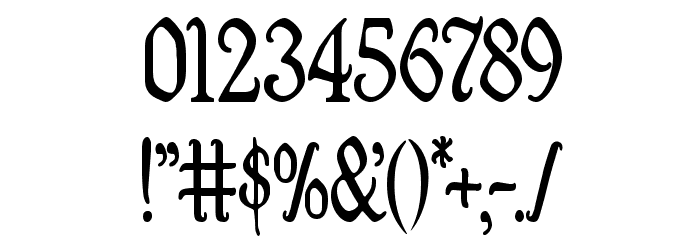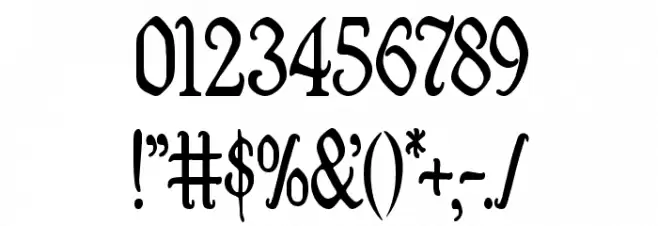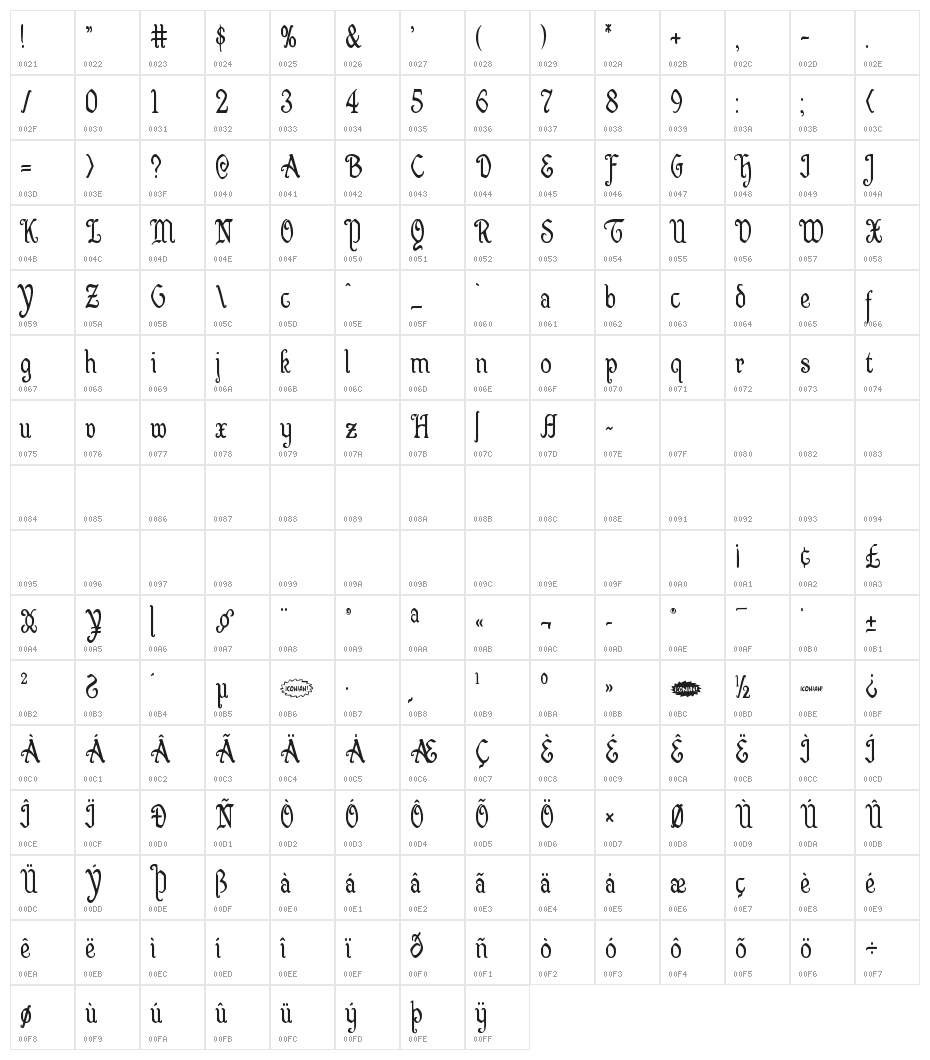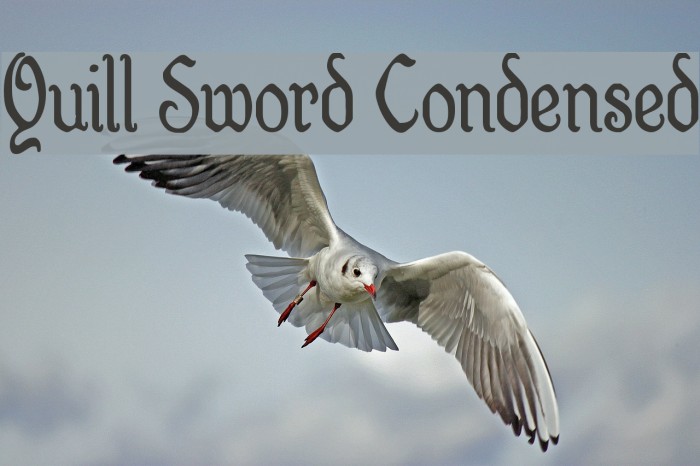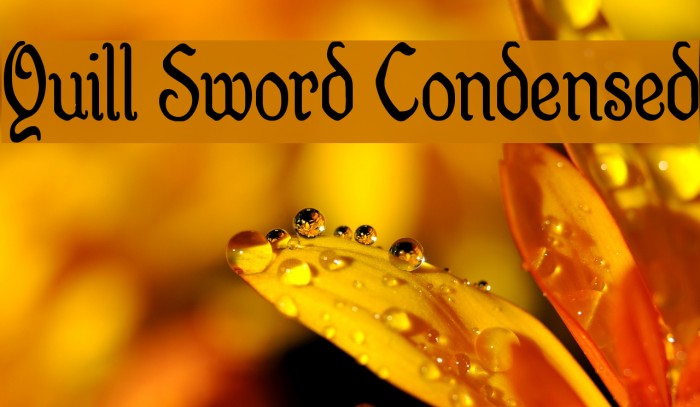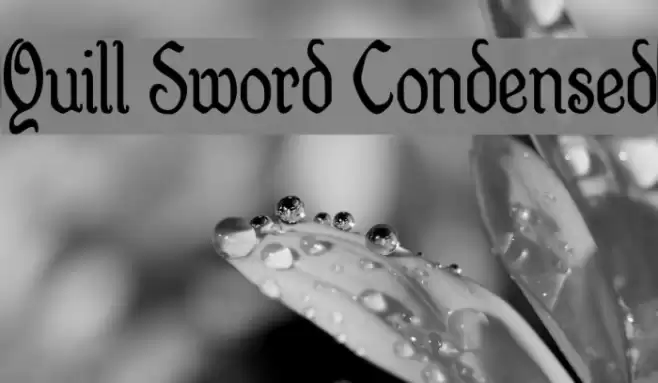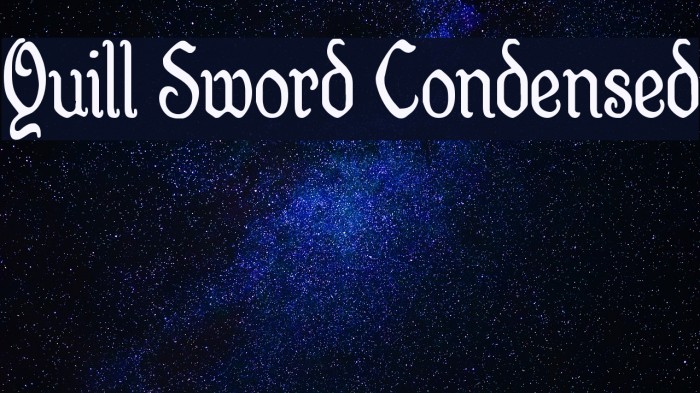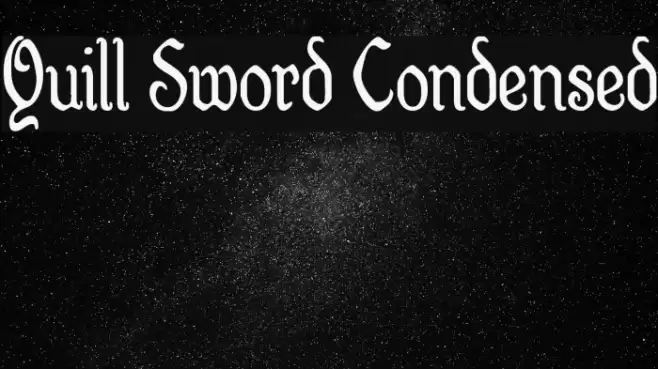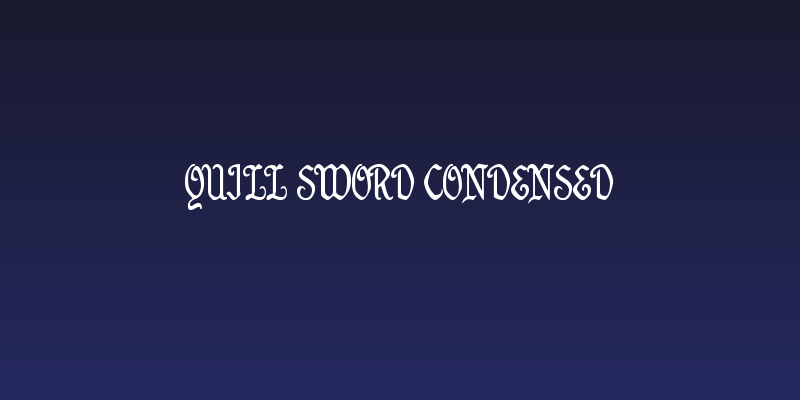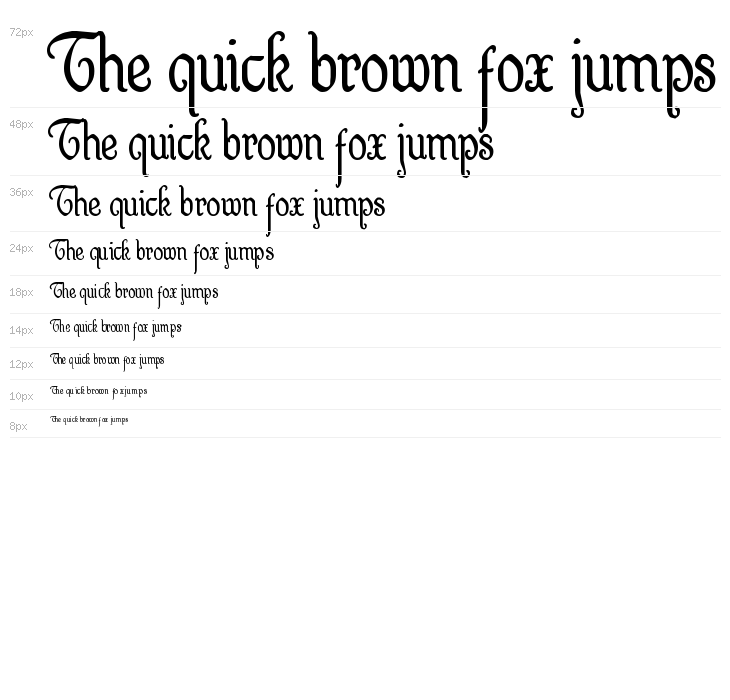
Quill Sword Condensed Font
Quill Sword Condensed Description
This font features a distinctive blend of medieval and modern elements, characterized by its ornate and decorative style. The uppercase letters exhibit a strong presence with their bold, sweeping curves and intricate details, reminiscent of calligraphic or blackletter influences. The lowercase letters maintain a consistent style, offering a more streamlined and readable form while still retaining the decorative flair. The numerals and special characters are designed to complement the overall aesthetic, ensuring a cohesive look across all text. This font's condensed width allows for efficient use of space, making it suitable for various design applications.